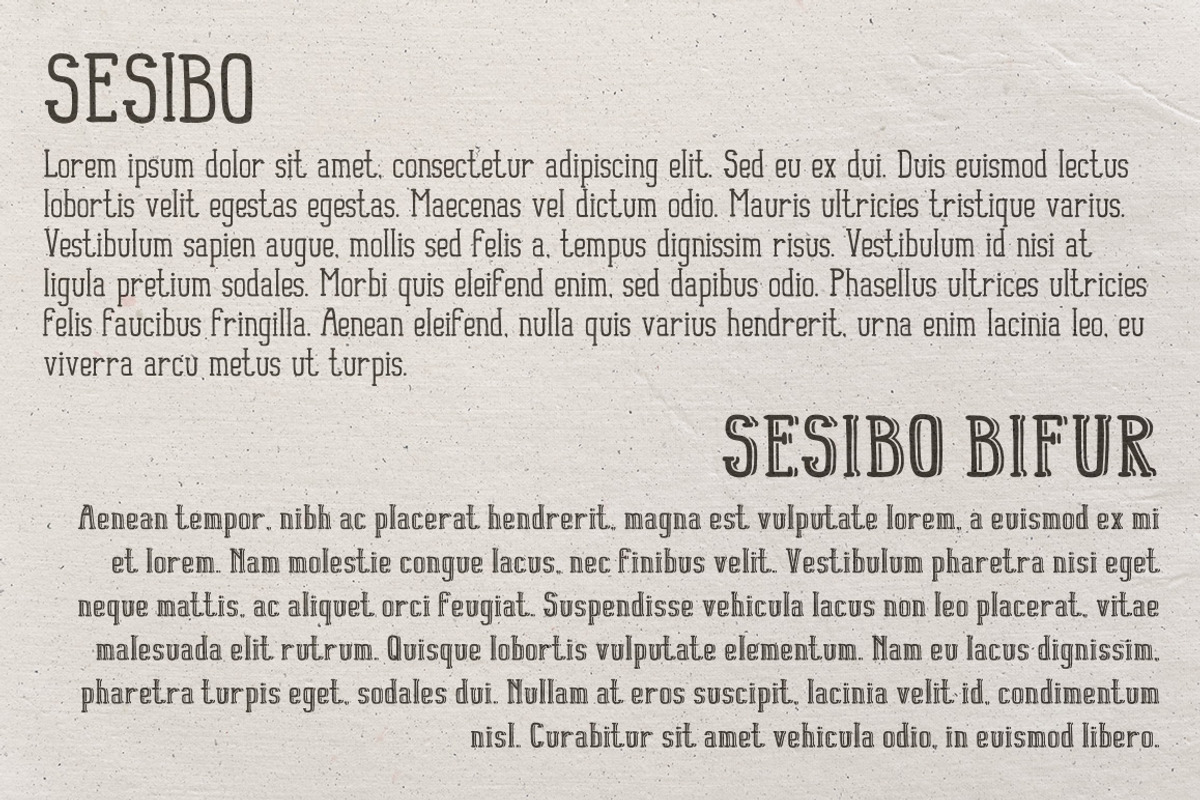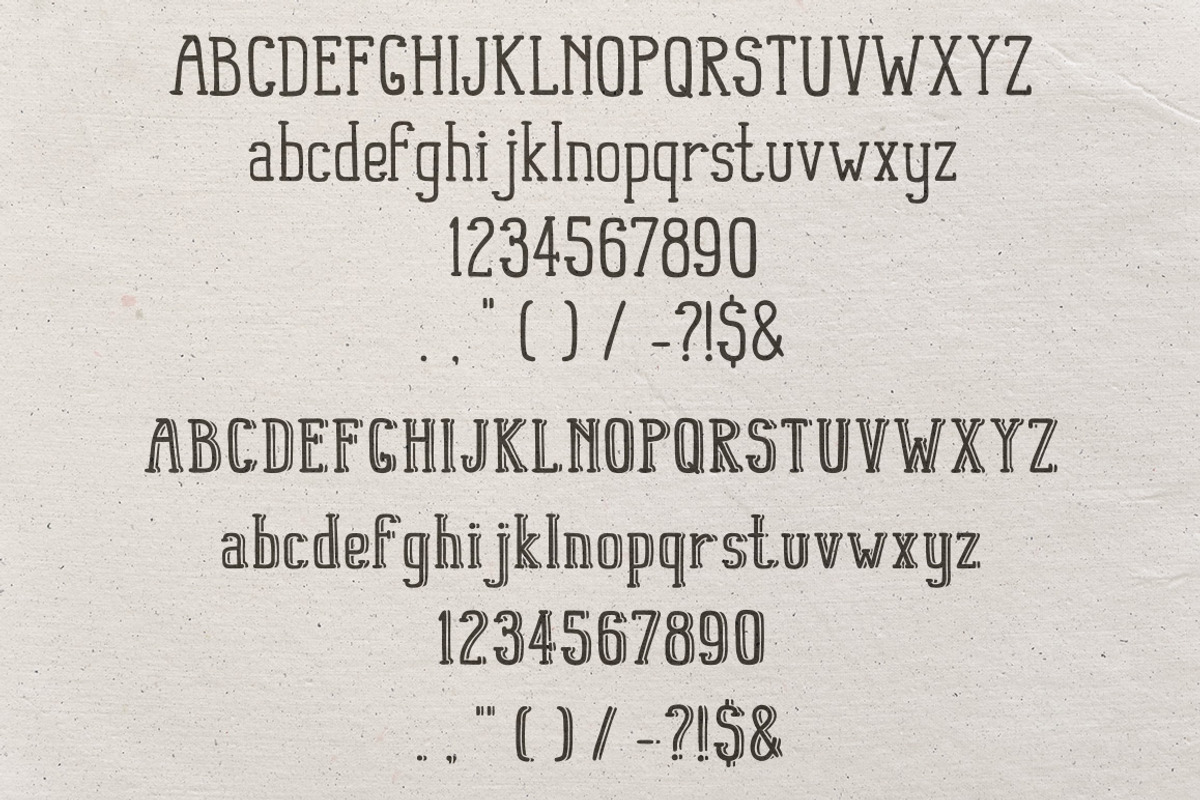
Sesibo Fonts
Sesibo Fonts by Agor2012 shop is a font selected for branding, posters, packaging, typography.
Why Sesibo Fonts is worth a look
Sesibo Fonts by Agor2012 shop fits naturally into Branding, posters, packaging, typography.